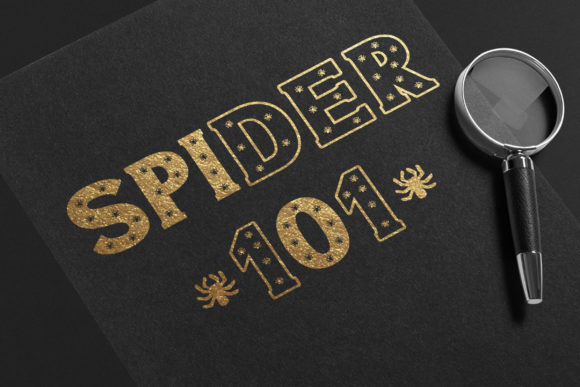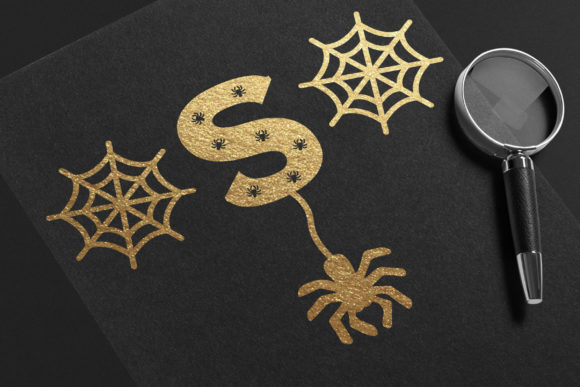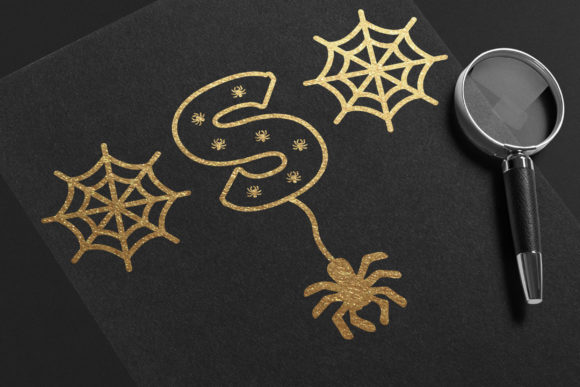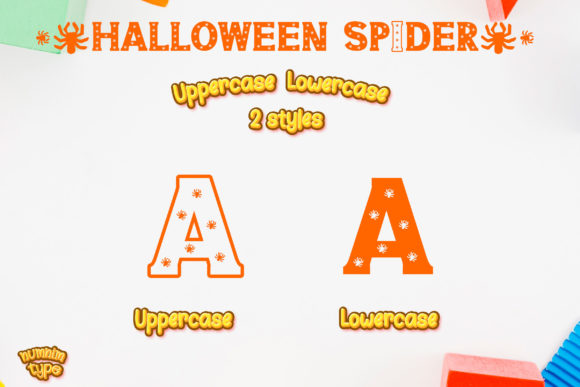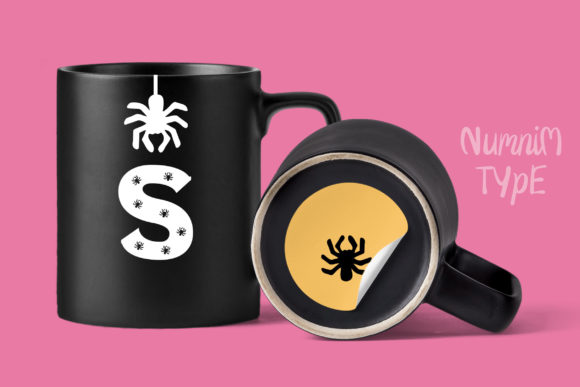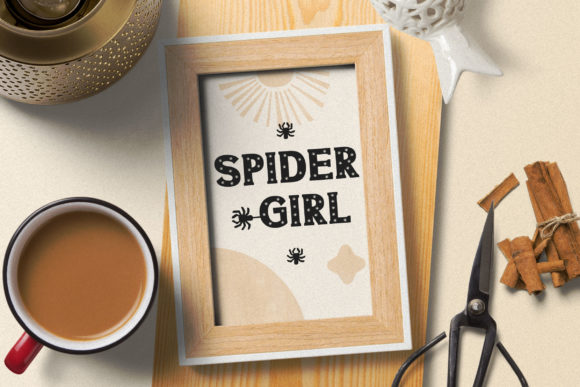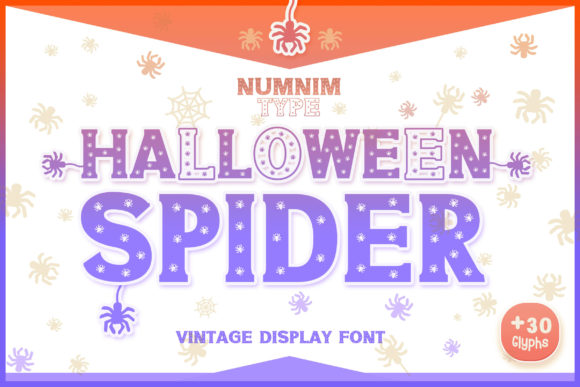
Unleash the Spooky Spirit with Halloween Spider Font
As the spookiest time of the year approaches, designers and crafters are on the lookout for the perfect font to add a touch of eerie elegance to their creations. Look no further than the Halloween Spider Font, a cool, bold, and thick lettered display font that’s sure to cast a spell on your audience.
What Makes Halloween Spider Font So Special?
Halloween Spider Font is not just any ordinary font. Its unique design features bold and thick letters that are perfect for creating eye-catching titles, headings, and captions for your Halloween-themed projects. Whether you’re working on a spooky invitation, a creepy craft project, or a howling good poster, this font is sure to make your design stand out from the crowd.
The Halloween Spider Font is incredibly versatile, making it perfect for a wide range of design projects. Here are just a few ideas to get you started:
- Halloween party invitations and flyers
- Spooky craft projects, such as pumpkin carvings and ghostly decorations
- Eerie posters and social media graphics
- Creepy card making and paper crafting projects
- Spooky signage and banners
Tips for Using Halloween Spider Font
To get the most out of Halloween Spider Font, here are a few tips to keep in mind:
- Experiment with different font sizes and colors to create a bold and eye-catching design
- Use the font’s swashes and glyphs to add flourishes and embellishments to your text
- Pair the font with other spooky design elements, such as bats, spiders, and jack-o-lanterns
- Don’t be afraid to get creative and try out new and unusual design ideas
Key Features of Halloween Spider Font
- Cool, bold, and thick lettered display font
- Perfect for Halloween-themed design projects
- Endless design possibilities, from invitations to signage